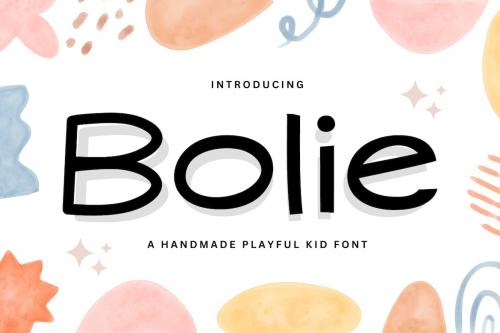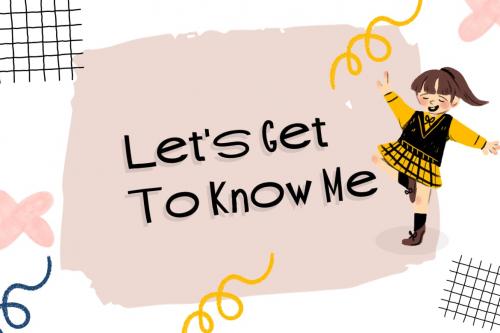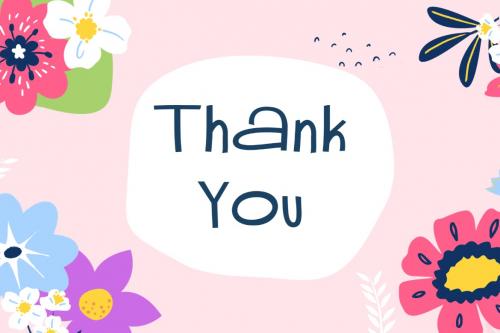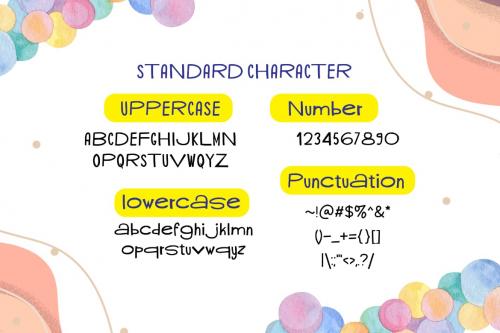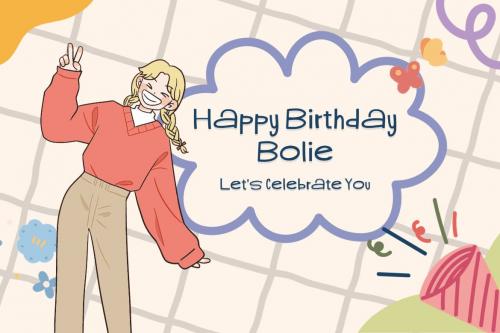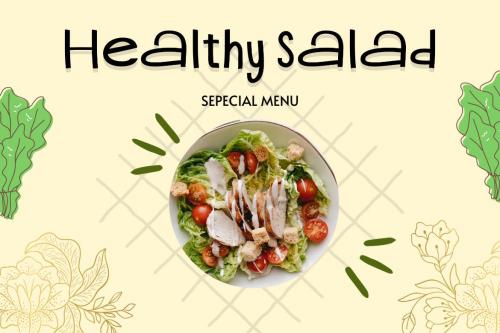
**Bolie - Handmade Playful Kid Font**
Bolie is a delightful handmade playful kid font designed to unleash creativity and add a touch of whimsy to your projects. Whether you''re working on children''s books, playful branding, or imaginative posters, Bolie''s charming and friendly appearance will bring a sense of joy and lightheartedness to your designs.
With its fun and imaginative style, this font is perfect for capturing the attention of young audiences and infusing your projects with a sense of wonder and excitement. Let Bolie be your go-to choice for creating designs that inspire and bring smiles to faces, making every project a delightful journey of discovery and fun.
Let your creativity soar with Bolie, the handmade playful kid font that brings a sense of whimsy to any project. Whether you''re working on children''s books, playful branding, or imaginative posters, Bolie''s friendly and charming appearance is sure to bring joy and lightheartedness to your designs.
With its fun and imaginative style, this font is perfect for captivating young audiences and infusing your projects with wonder and excitement. Make Bolie your trusted companion for creating designs that inspire and bring smiles, turning every project into a delightful journey of discovery and fun.